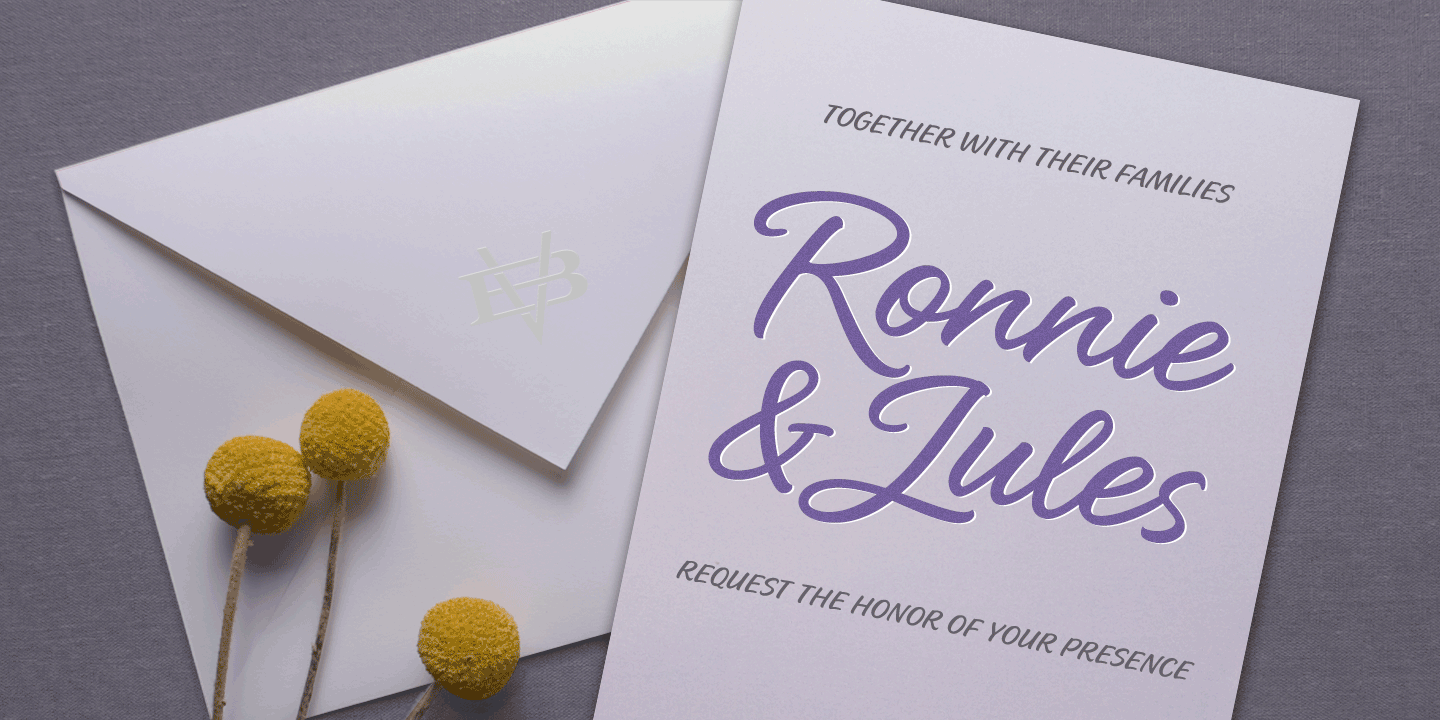
About Fudge Sauce
Fudge Sauce is a fun font duo by Jess Latham! Fudge Sauce (Script) contains the following opentype goodness: Contextual Alternates Let\’s start with the starting and ending lowercase letters! Sentences with only lowercase typically need some oomph.…